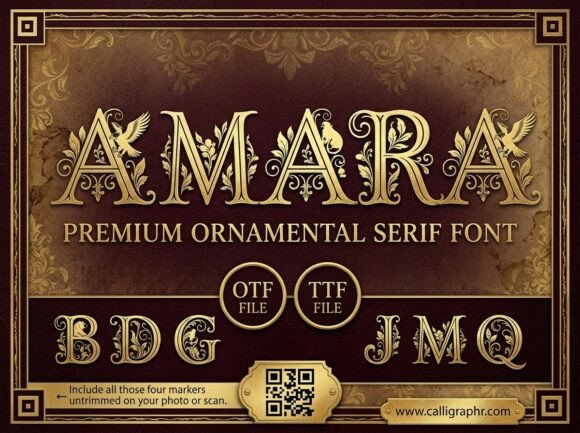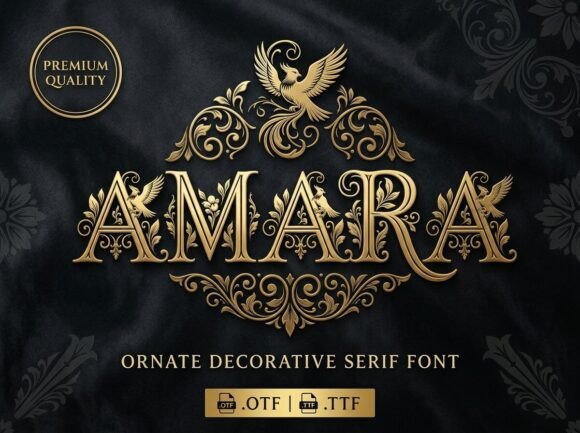
Introducing Amara Font: The Ultimate Decorative Display Font
Are you tired of using the same old fonts for your designs? Look no further! Amara Font is a stunning decorative display font that is sure to turn heads. With its unique artistic elements and strong visual personality, this font is perfect for creators who want to break away from the ordinary and make a statement.
What Makes Amara Font Special?
Amara Font is a versatile font that is designed to be the center of attention. Its unique artistic elements and strong visual personality make it perfect for a variety of design projects, including bold headlines, artistic logos, and creative packaging. Whether you’re a designer, craftsperson, or DIY enthusiast, Amara Font is sure to elevate your designs to the next level.
Key Features of Amara Font
- Unique Artistic Elements: Amara Font features unique artistic elements that set it apart from other fonts. Each letter is carefully crafted to make a statement and add a touch of elegance to your designs.
- Strong Visual Personality: This font has a strong visual personality that is sure to grab attention. Whether you’re using it for a headline, logo, or packaging, Amara Font is sure to make an impact.
- Versatile: Amara Font is versatile enough for a variety of design projects, including bold headlines, artistic logos, and creative packaging.
- Professional and Polished Finish: Despite its decorative nature, Amara Font maintains a professional and polished finish, making it perfect for designs that require a touch of sophistication.
⚠️ IMPORTANT NOTE BEFORE PURCHASE: Amara Font is an ALL-CAPS (Uppercase Only) display typeface. It does not include lowercase letters. It is specifically designed for high-impact headlines, logos, and decorative initials where every letter is a work of art.
Why Choose Amara Font?
There are many reasons why Amara Font stands out from the crowd. Here are just a few:
- Make a Statement: With Amara Font, you can make a statement and add a touch of elegance to your designs.
- Unique Designs: Amara Font is perfect for designers and craftspersons who want to create unique and eye-catching designs.
- Time-Saving: With Amara Font, you can save time and effort by using a pre-designed font that is sure to impress.
How to Use Amara Font
Amara Font is easy to use and can be incorporated into a variety of design projects. Here are a few ideas:
- Headlines: Use Amara Font to create bold and eye-catching headlines that grab attention.
- Logos: Create a stunning logo that stands out from the crowd with Amara Font.
- Packaging: Add a touch of elegance to your packaging with Amara Font.
In conclusion, Amara Font is a stunning decorative display font that is sure to elevate your designs to the next level. With its unique artistic elements, strong visual personality, and versatility, this font is perfect for creators who want to break away from the ordinary and make a statement. Whether you’re a designer, craftsperson, or DIY enthusiast, Amara Font is a must-have font that is sure to impress.